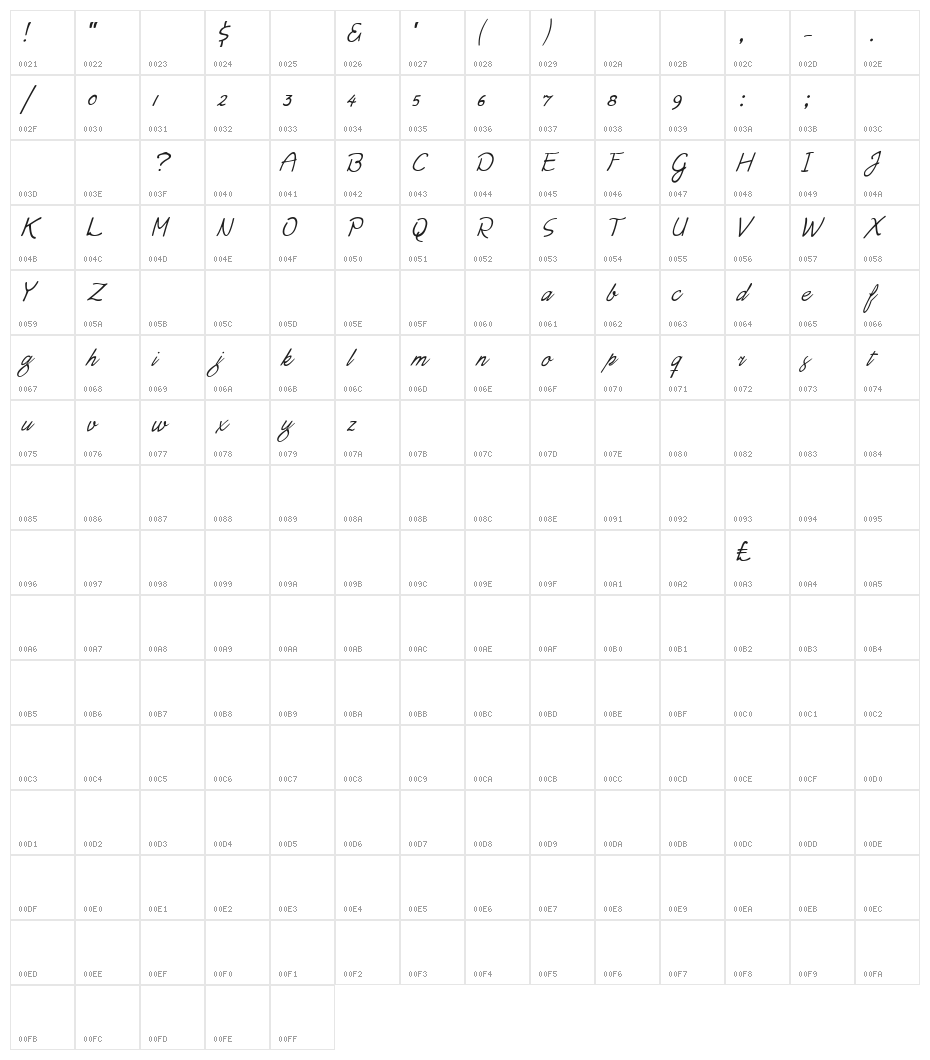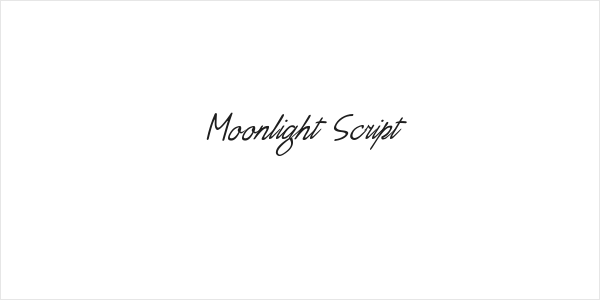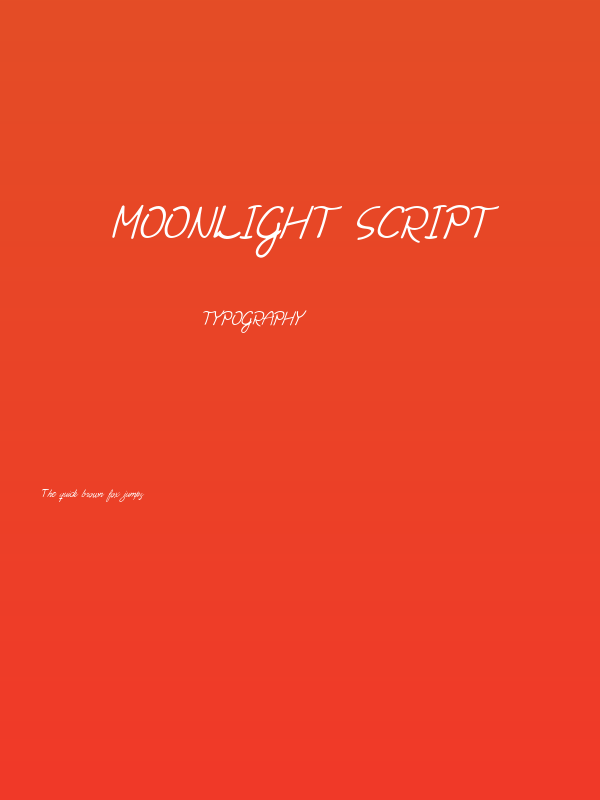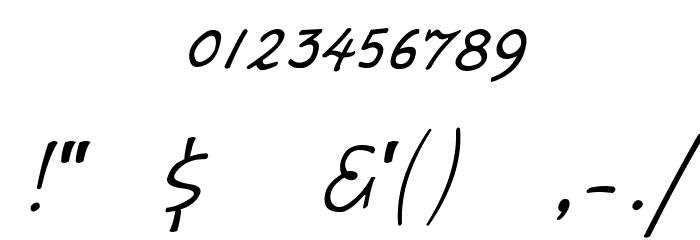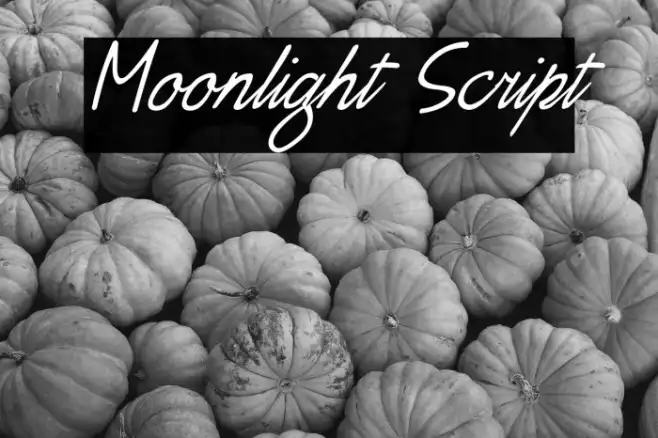
Moonlight Script Font
Moonlight Script Description
This elegant script font features fluid, connected strokes that mimic the natural flow of handwriting. The uppercase letters are tall and graceful, while the lowercase letters maintain a consistent slant, enhancing the cursive style. The numerals are clear and legible, complementing the overall aesthetic. Special characters are thoughtfully designed to integrate seamlessly with the letters, making this font versatile for various uses. Its refined appearance is suitable for formal invitations, branding, and any project that requires a touch of sophistication.
| Use Case | Invitations, Branding, Greeting Cards |
| Proposed Projects | Ideal for wedding invitations, elegant branding, greeting cards, and sophisticated logos. |